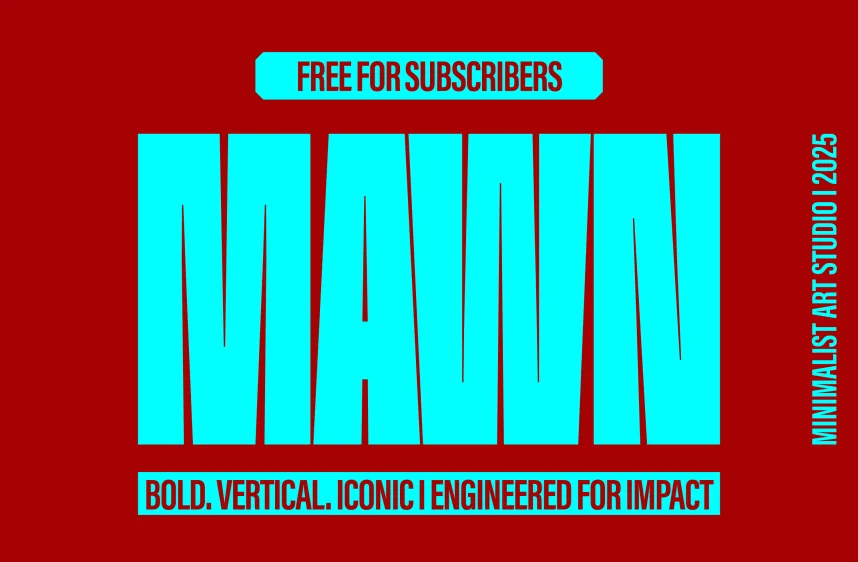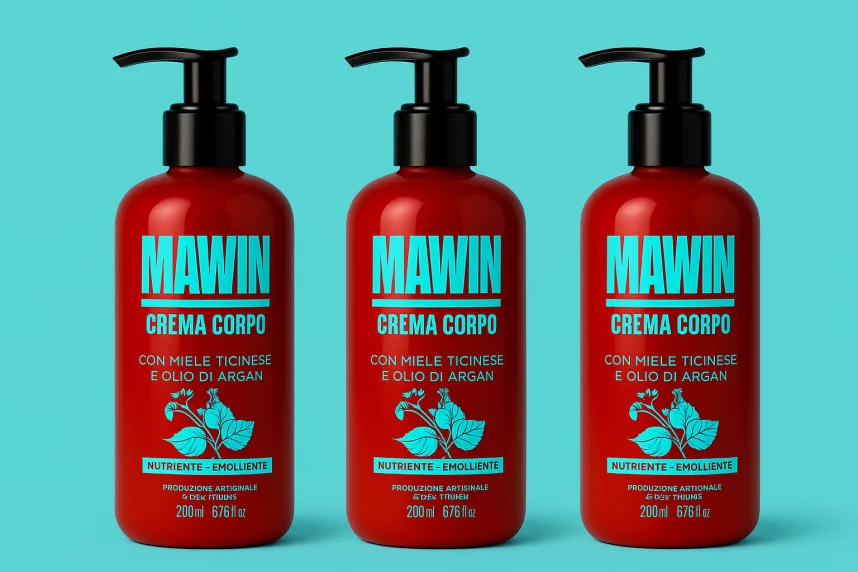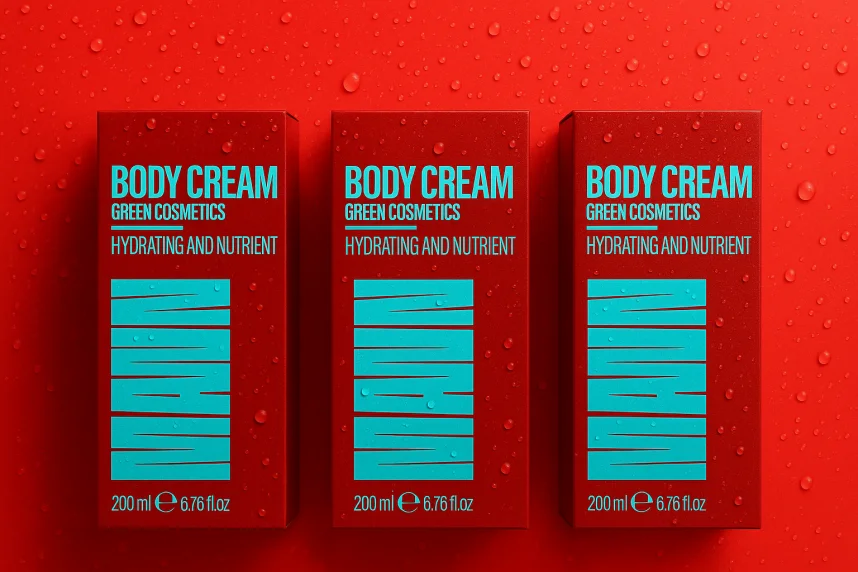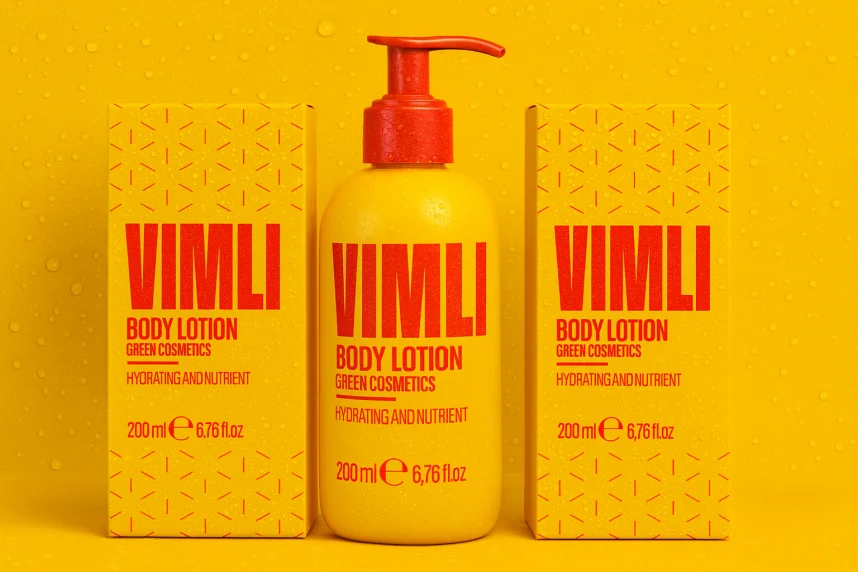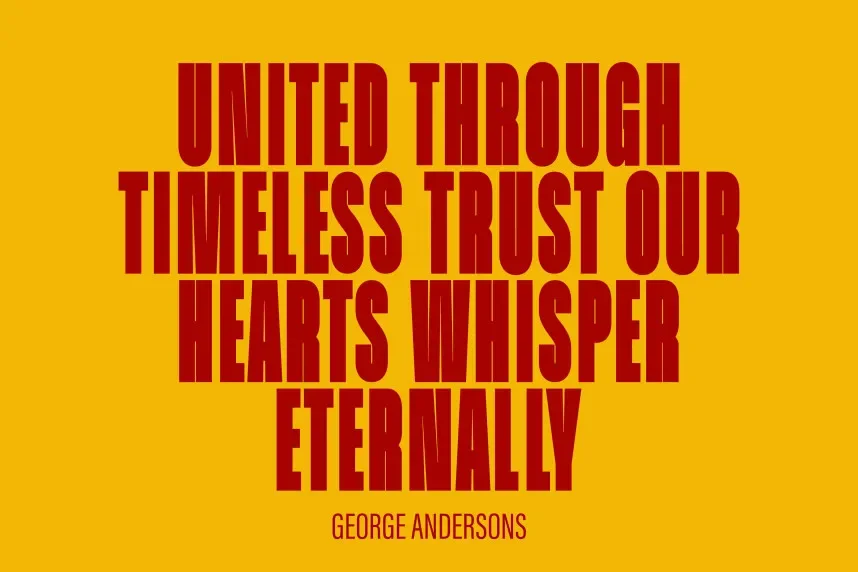
Mawn Font is a sans-serif typeface designed to support readability and consistency in clean layouts, UI design, and branding systems. Designers often need a minimal font that performs well across websites, print, and interface elements.
Mawn uses simple letterforms with even stroke weight, open counters, and consistent spacing. The minimal structure improves readability at small and medium sizes, making it suitable for both headings and supporting text. The font avoids decorative elements to maintain clarity in professional layouts.